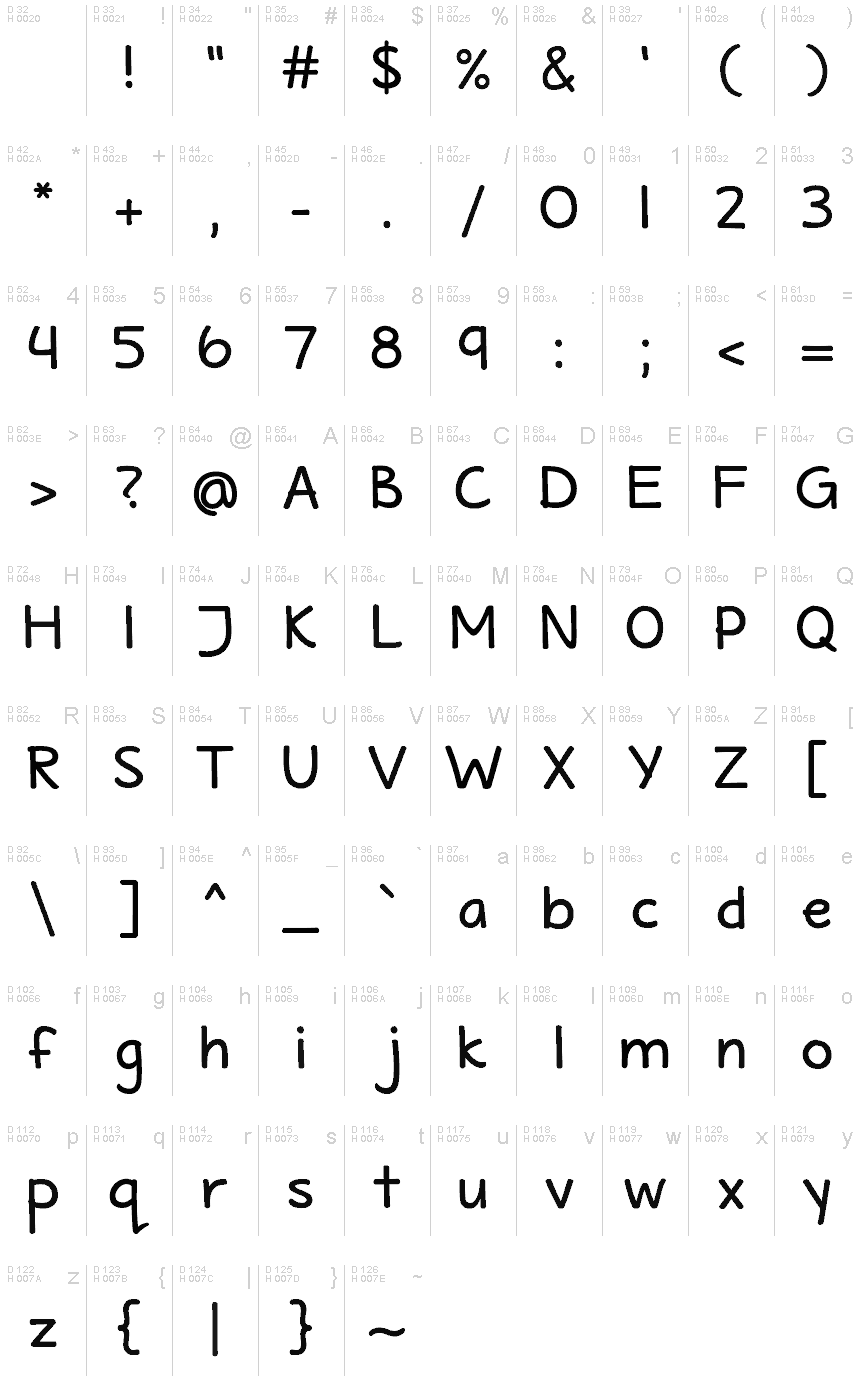
Maritime Tropical Neue Bold
Maritime Tropical Neue Bold is a captivating handwritten font crafted by letterpunch. Its organic, fluid strokes evoke a sense of natural movement, while the bold weight lends an air of confidence and authority. The varied line widths and playful ligatures add a touch of character, making this font an eye-catching choice for branding, editorial design, and more.
This versatile font can elevate a range of projects, from vibrant beachwear packaging to rustic restaurant menus. Its distinctive personality shines through in both large and small applications, making it a versatile addition to any designer's toolkit.
The entire Maritime Tropical typeface has been reworked and expanded enough to warrant the release of a completely new font, Maritime Tropical Neue. Better typography, same style.
This release introduces better kerning and spacing, better harmonization, redesigned characters, many math symbols and accented glyphs, English IPA support, dashes, and ligatures such as fi.
The update has fixed a few remaining kerning issues (r-o) and tweaked the bold "a".